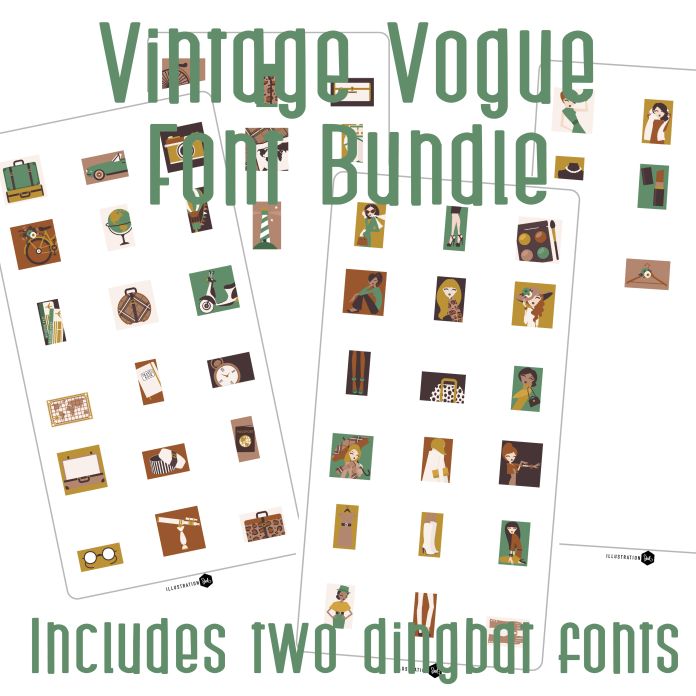
This bundle includes two full color dingbat fonts for one low price! With two dingbats you get 52 total images with 26 fashion and girly images, and 26 travel imagery. Both color fonts are perfect for cards, crafts, gifts, decor, classrooms, planner stickers, scrap book pages and more!